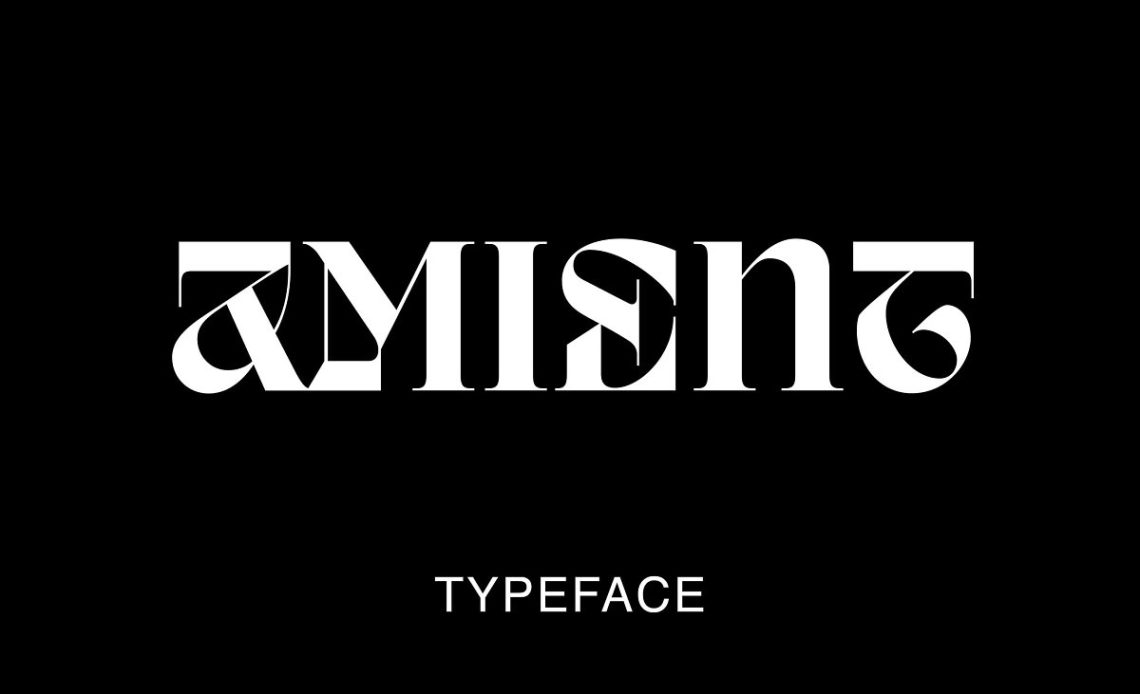
Introducing Amient – Modern Display Font, the perfect choice for bold and experimental projects. Created by Piotr Lapa, this serif font is inspired by contemporary typography, giving it a unique and expressive character that will make your designs stand out.
With only capitals available, Amient offers extended Latin support, ligatures, and a web font, making it versatile for various design needs. The font includes a 254-glyph set, providing you with all the options you need to make your designs pop.
Amient is not just any font, it's the best font for web apps. It's a bold choice for those who want to elevate their designs and grab attention. Use it on posters, covers, titles, and logos to add a touch of eccentricity and consistency. This display font is not meant for continuous text, but it's perfect for creating captivating headlines and taglines.